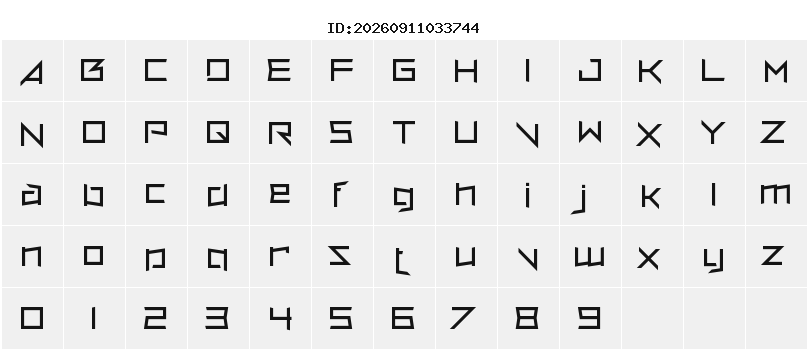
• Font Name: Vermin Vore
• Full Font Name: Vermin Vore
• Designer: Andrew McCluskey
About Vermin Vore.otf
Vermin Vore.otf is a modern, elegant sans-serif font designed for ultimate readability and visual harmony. Perfect for branding, headlines, web design, and print materials.